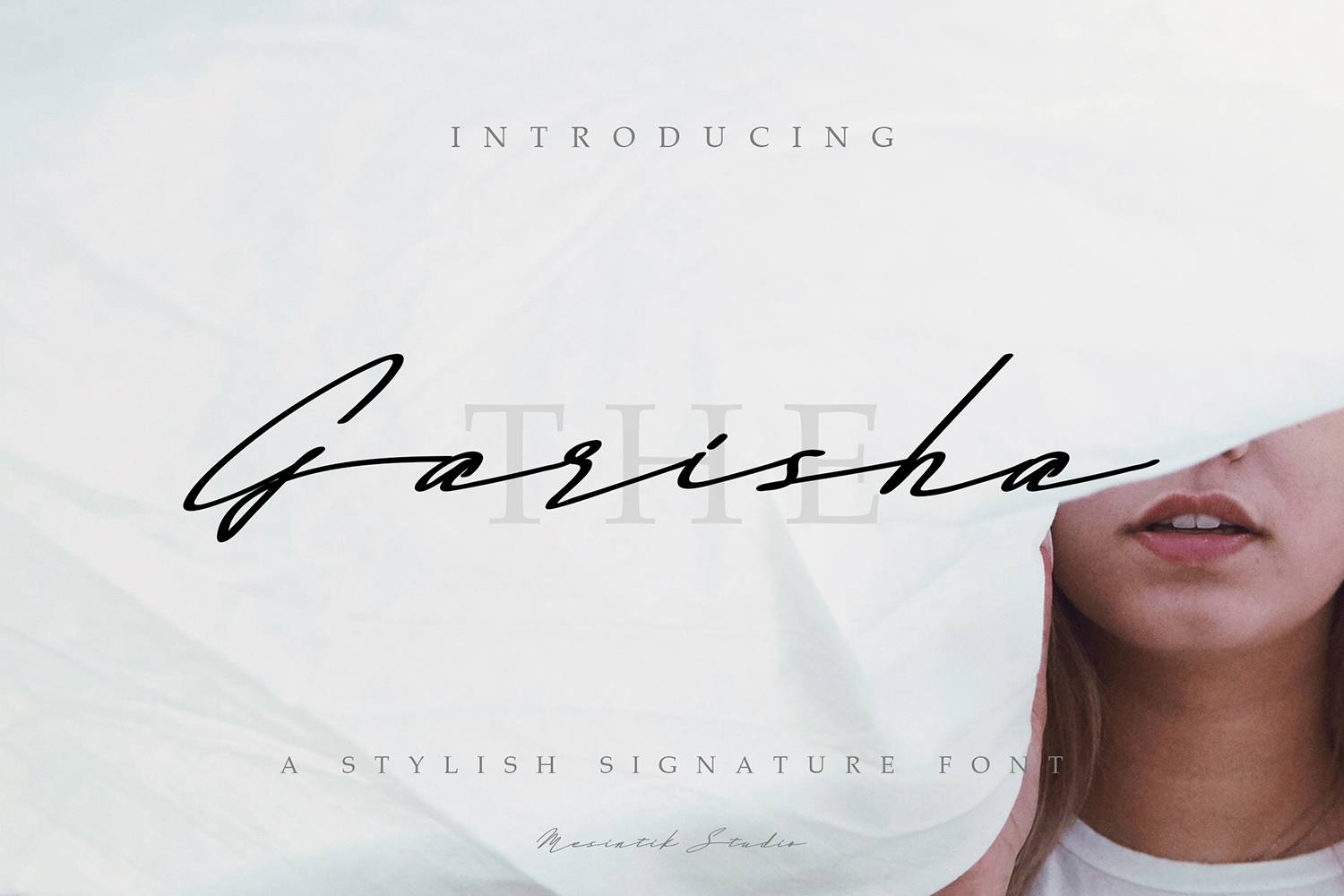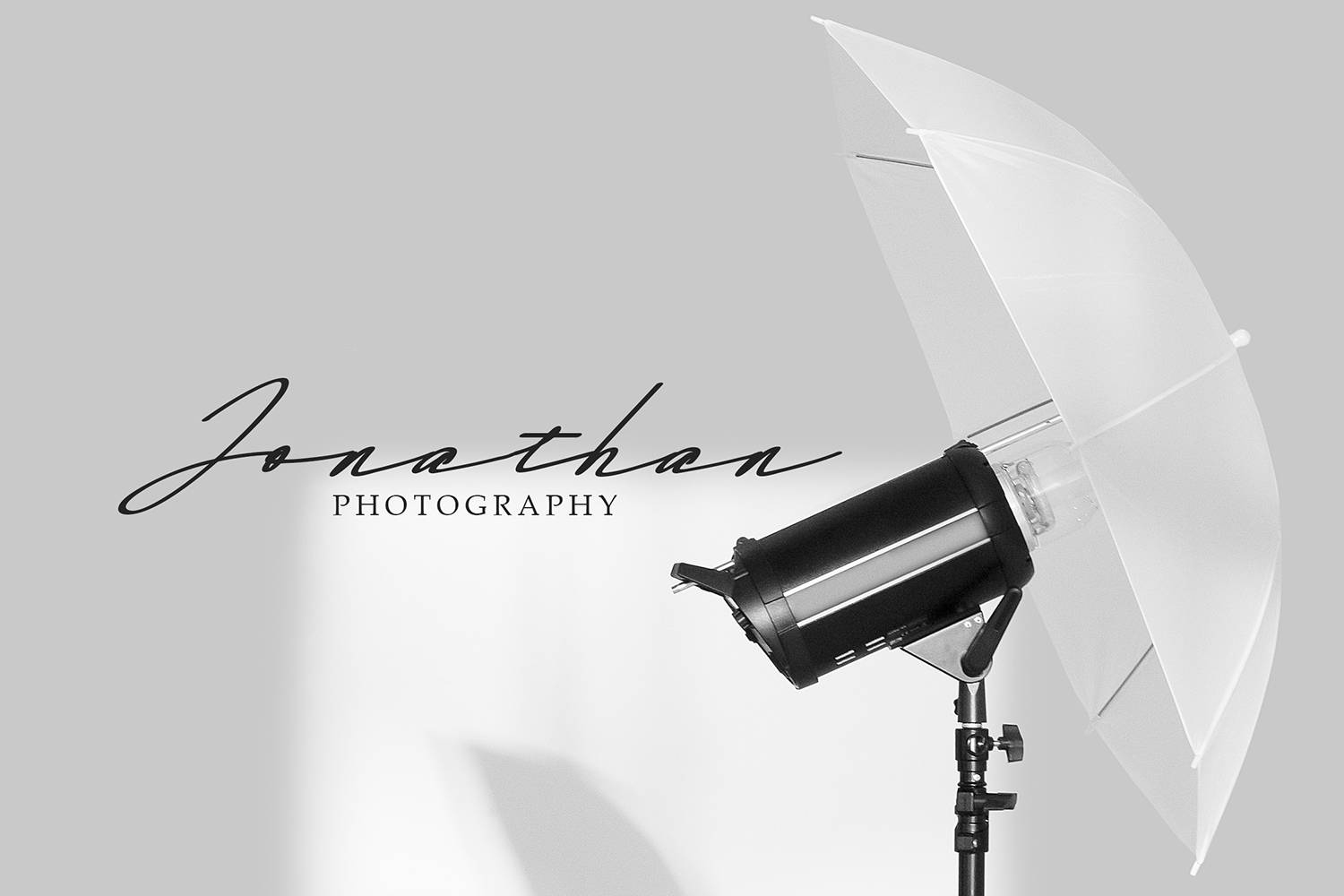
The Garisha Font is a delicate, cursive script with a light and airy feel, characterized by its elegant, hand-drawn strokes that flow smoothly with natural, calligraphic flair. Its slender letterforms and subtle variations in line weight make it ideal for projects needing a personal, sophisticated touch, such as invitations, branding, and stylish editorial designs. This font brings a graceful and refined personality, perfect for adding warmth and charm to creative works.
The Garisha Font
About The Garisha Font